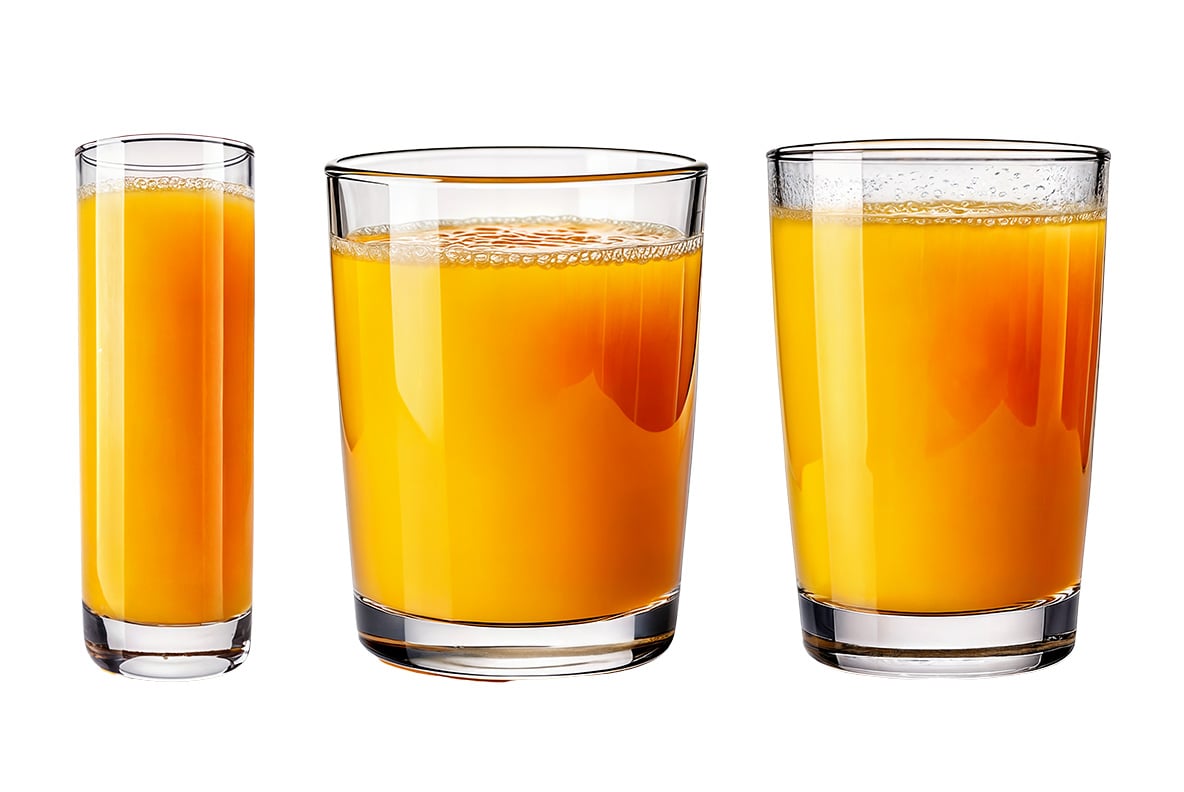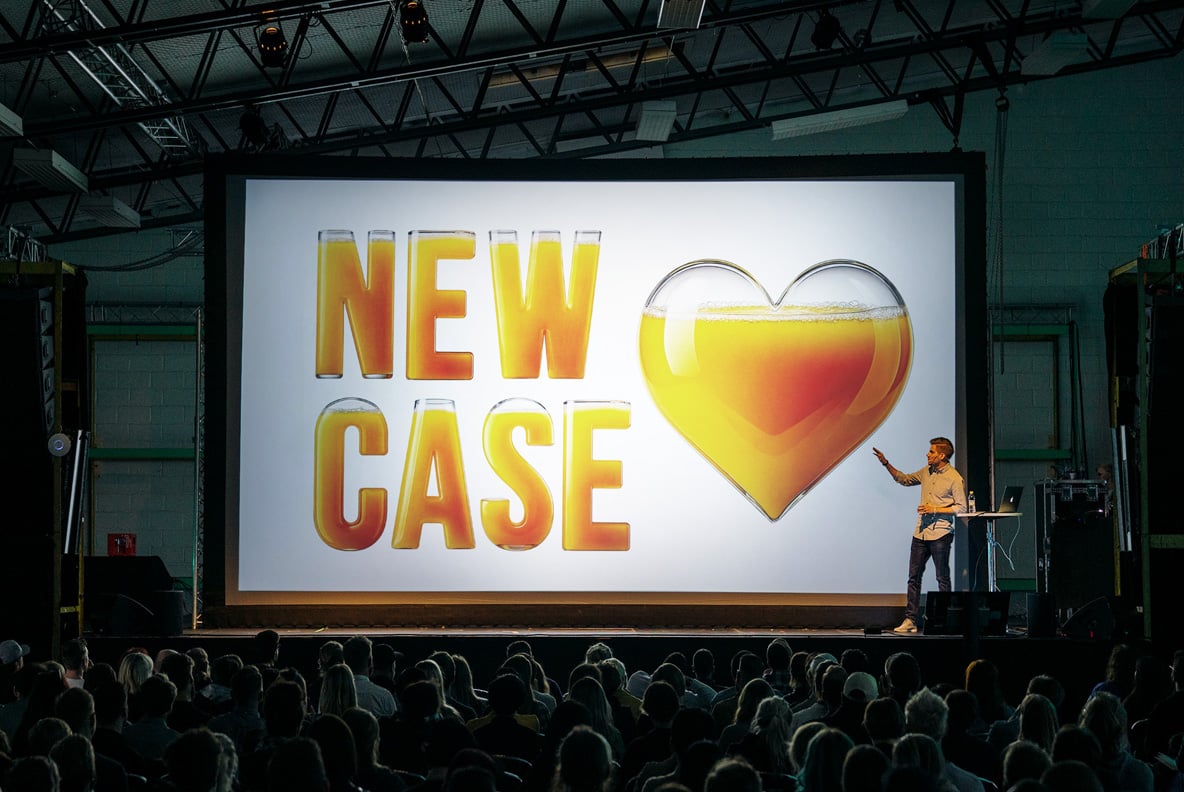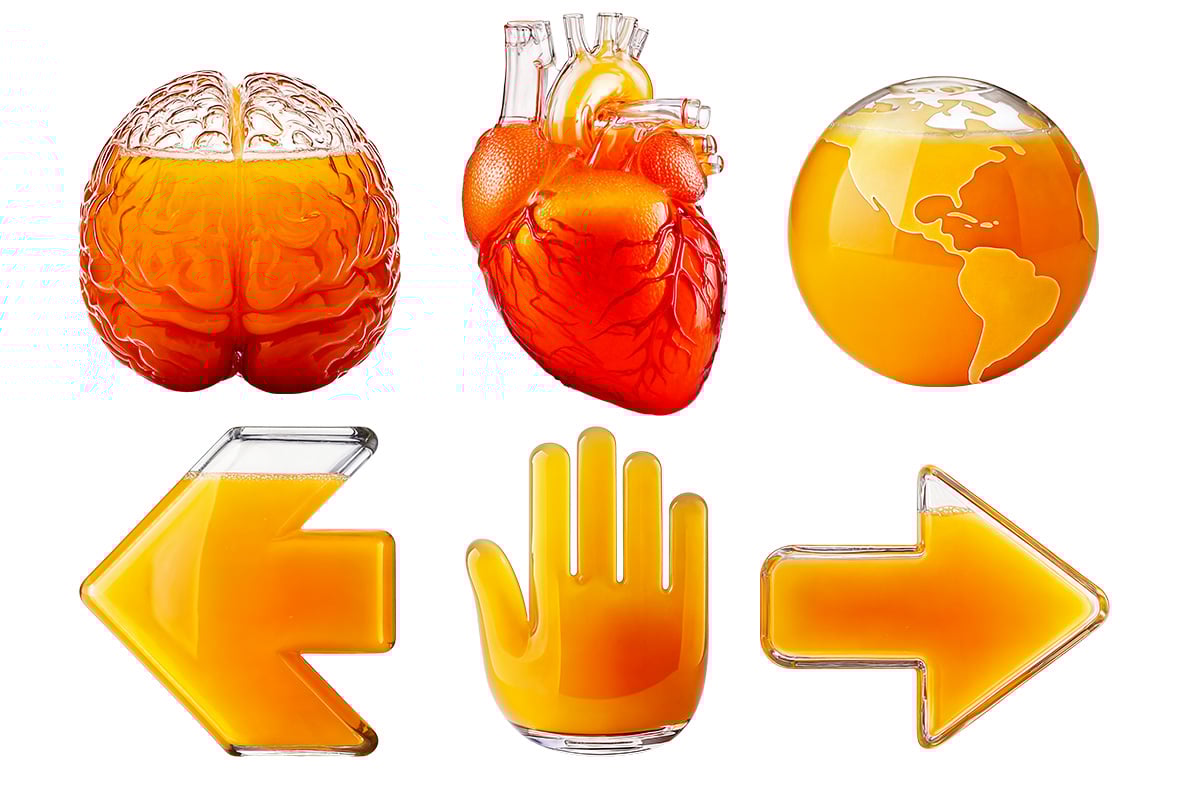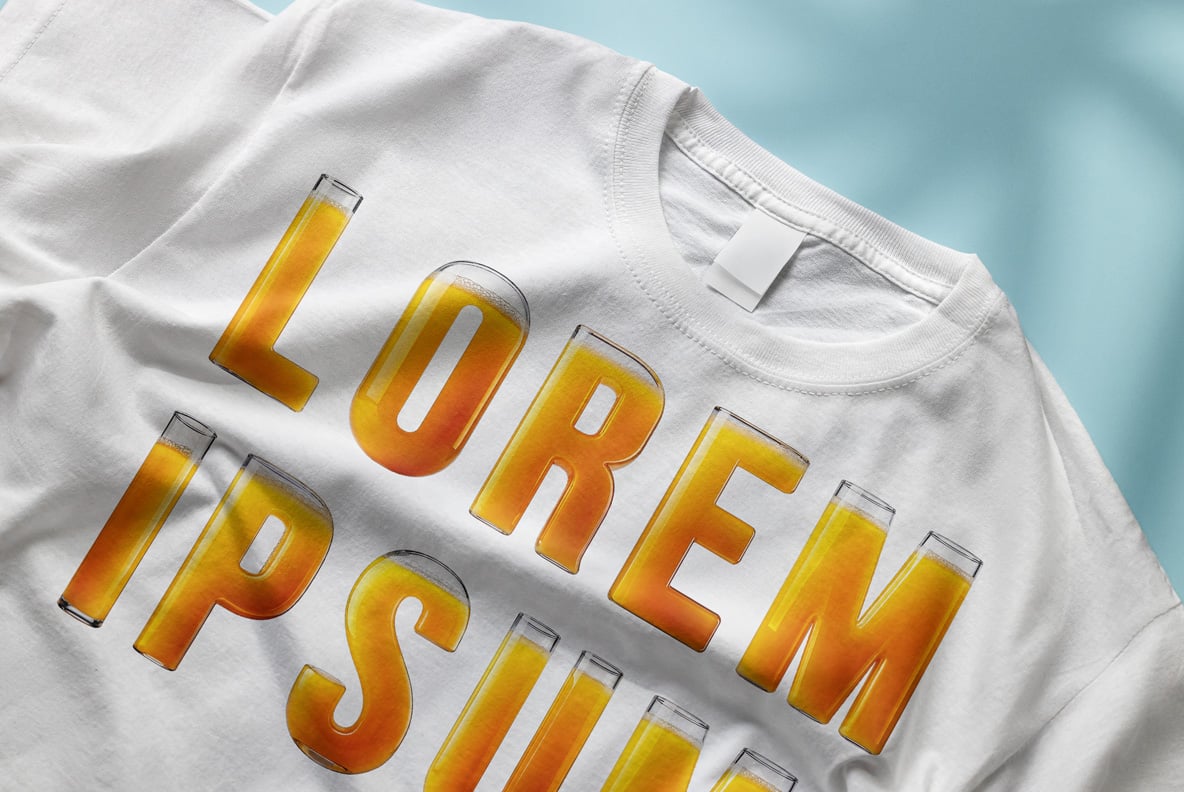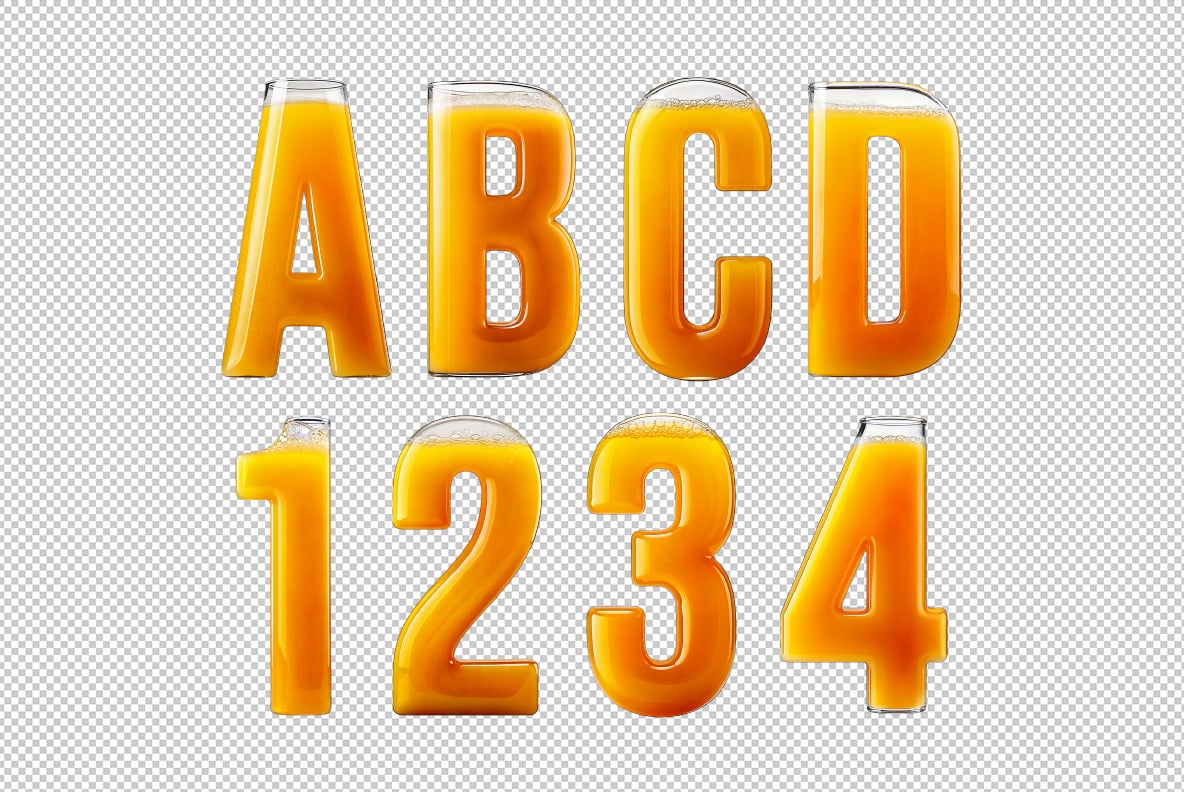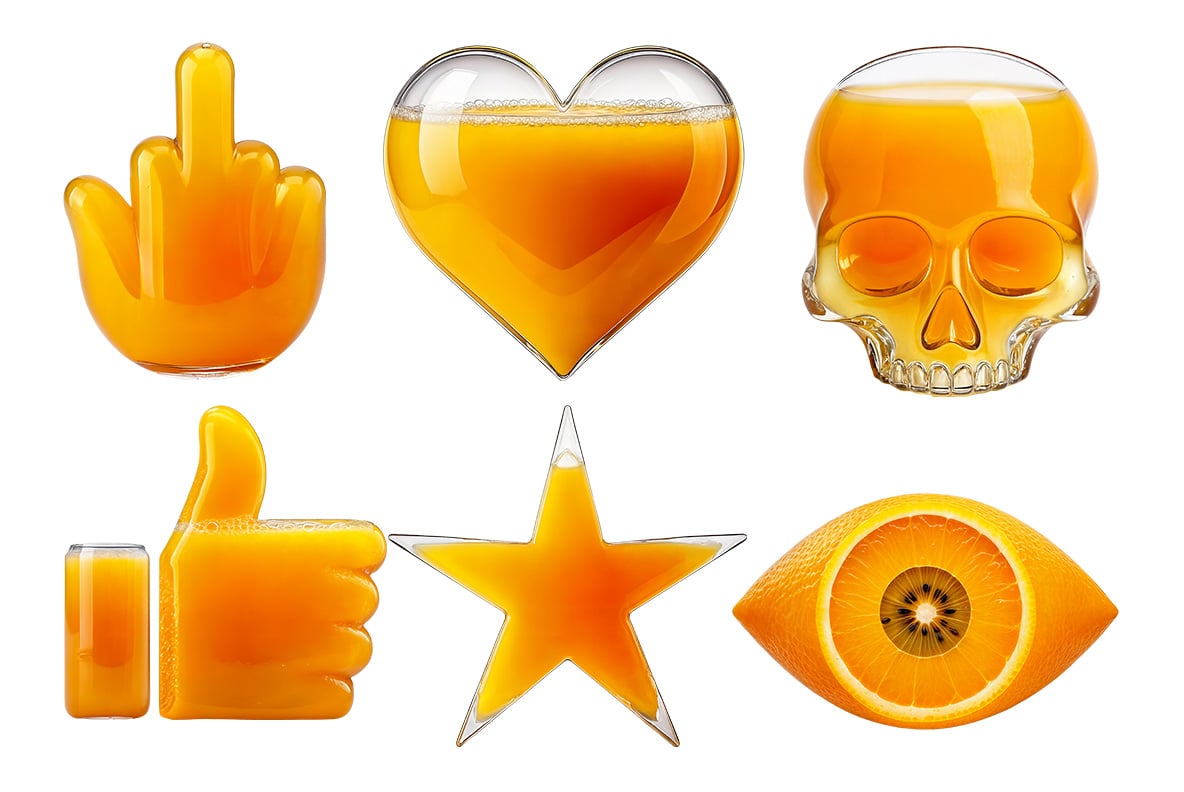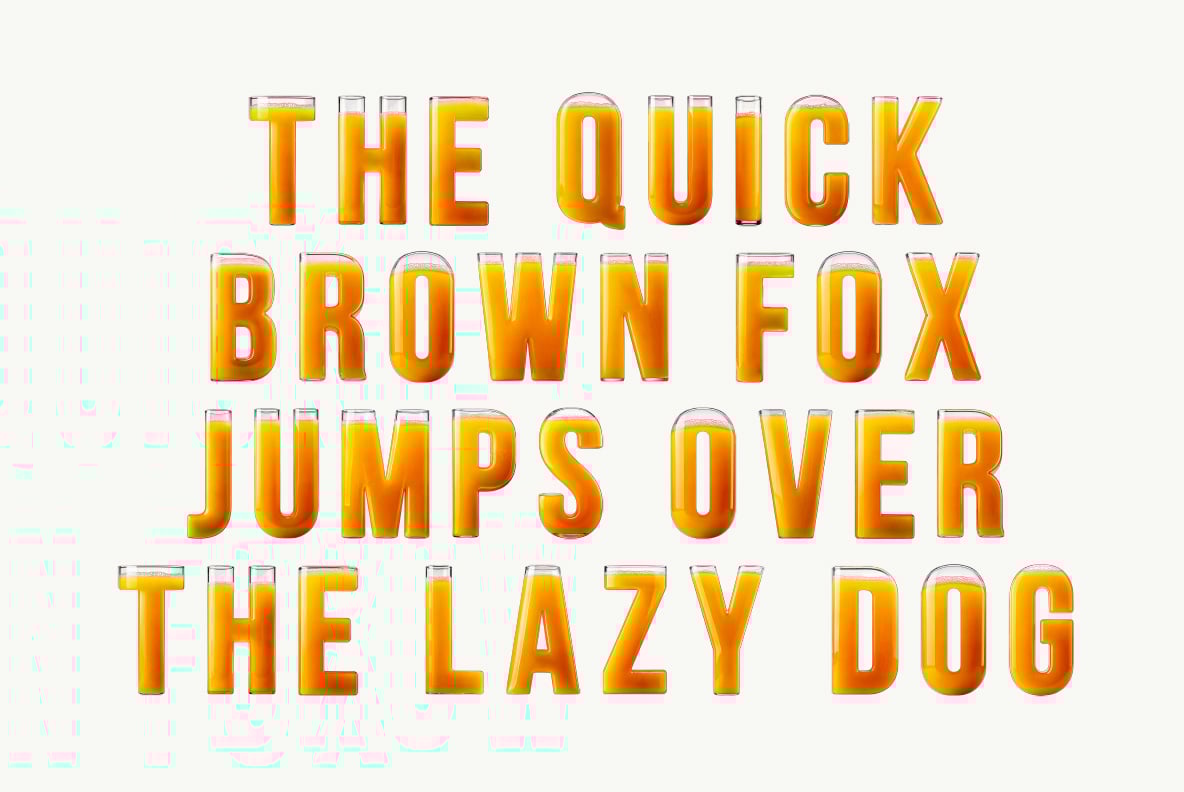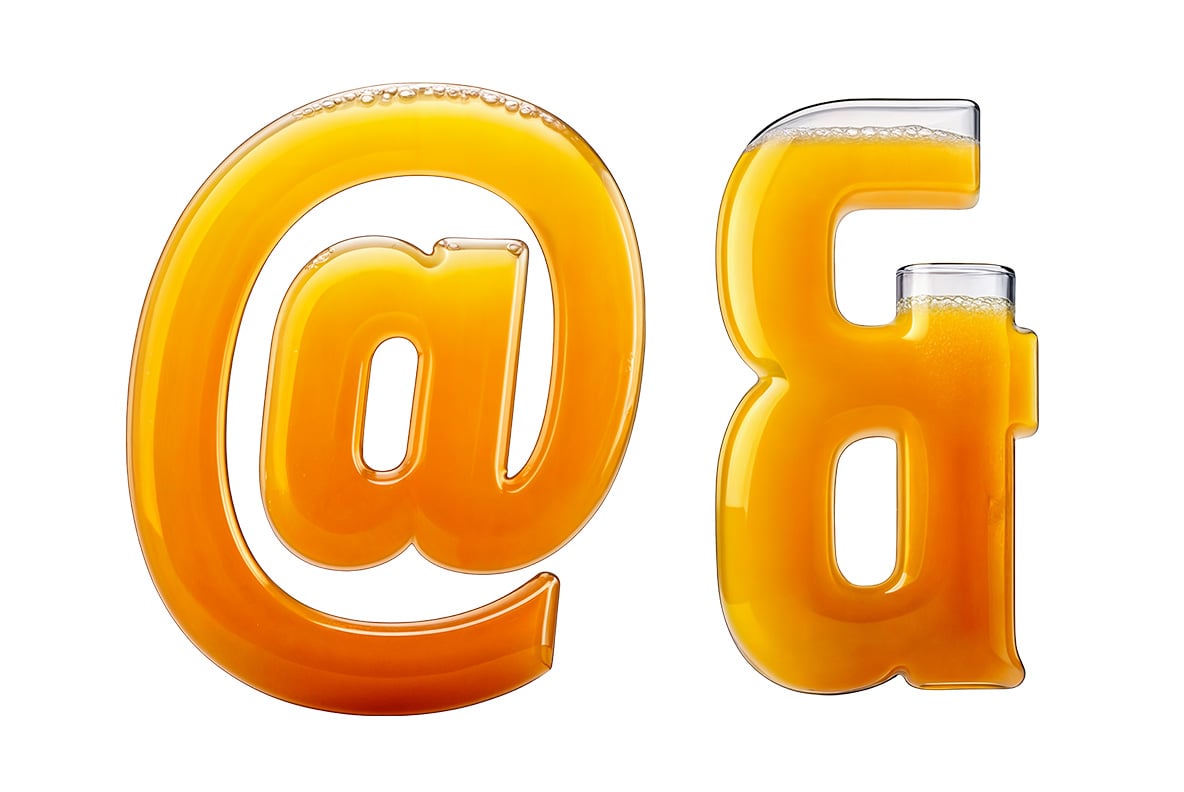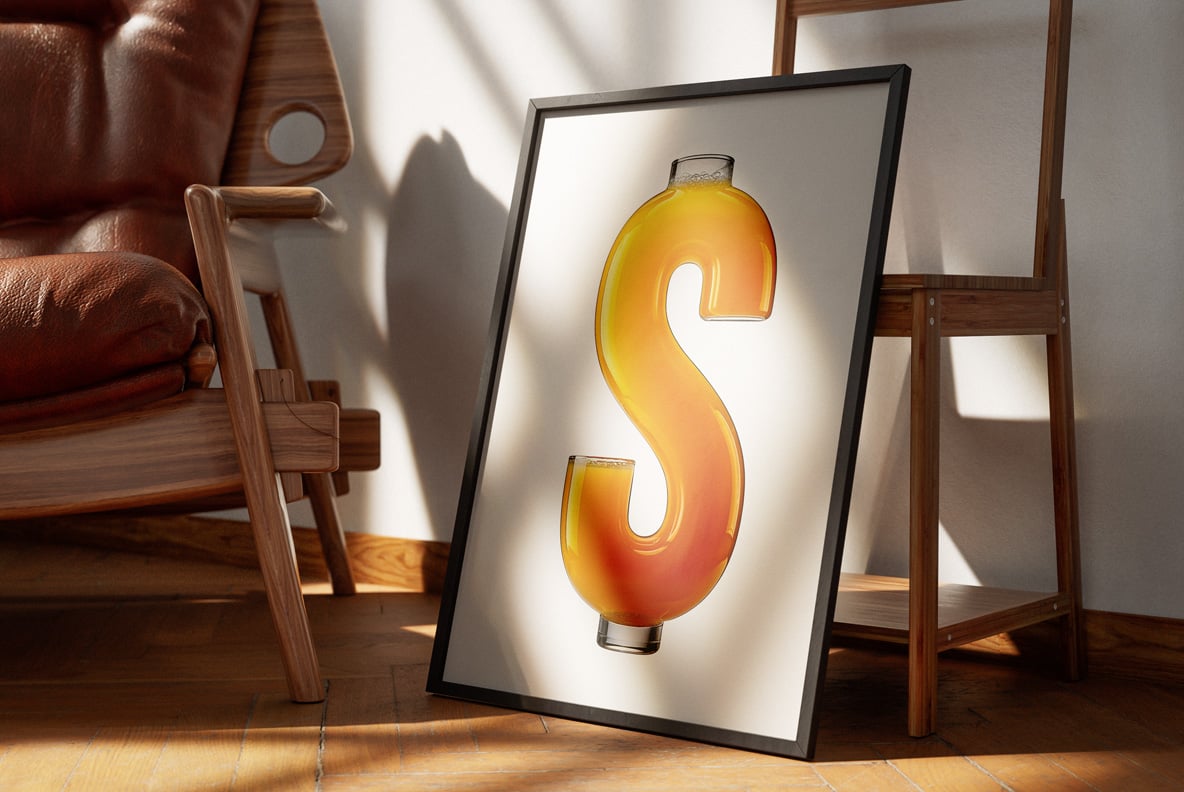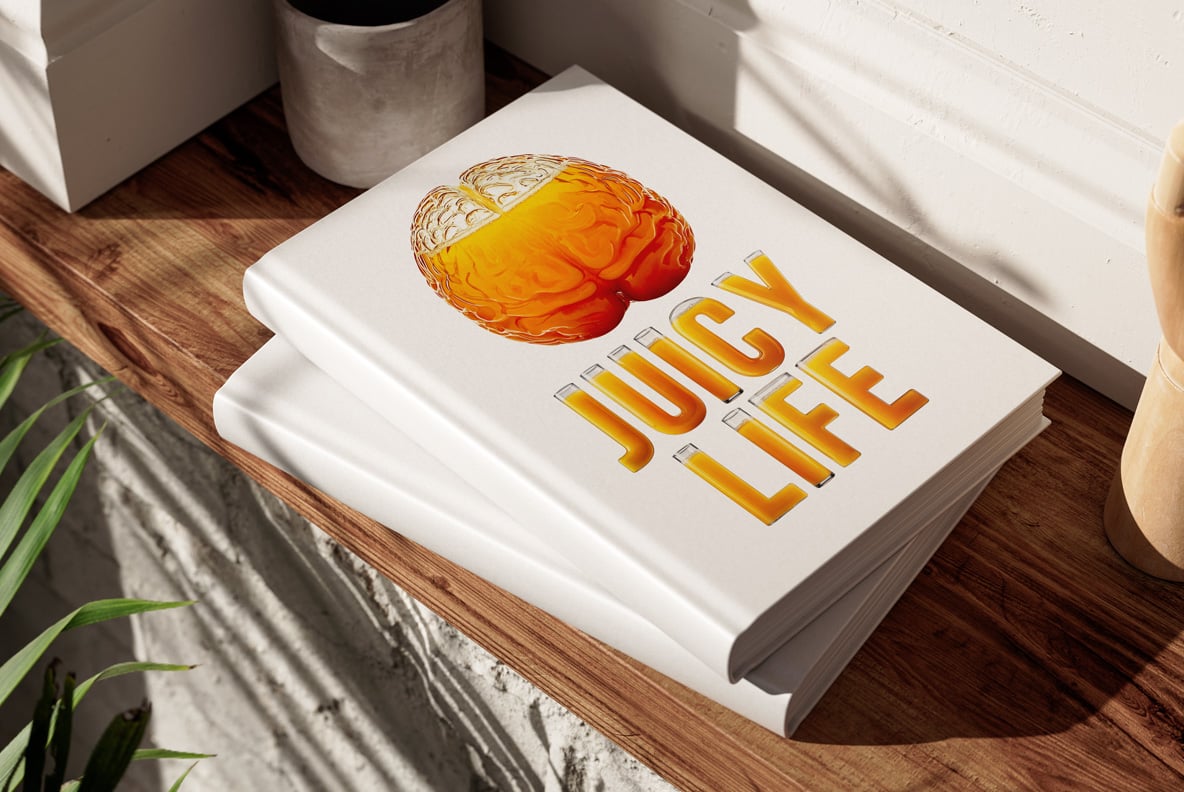
Orange Juice Font
Orange Juice Font is a refreshingly bold and playful typeface where each letter is crafted from crystal-clear glass, filled to the brim with vibrant, golden-orange juice. With realistic liquid textures, bubbly froth, and smooth glass contours, this font captures the zest and energy of a freshly squeezed morning boost. It's perfect for food packaging, summer campaigns, or any design that calls for a burst of fruity flavor and visual freshness. Orange Juice Font delivers more than just letters — it serves up attitude, vitamin C, and a wink of fun. Typography has never looked (or tasted) so juicy and delicious.
A high definition OpenType Font. Contains uppercase characters, numerals and basic punctuation. (Draw height roughly 800 pixels). All letters and glyphs that comprises this font you can see on the preview.
Others : ! ? - . ' $ € % & # @